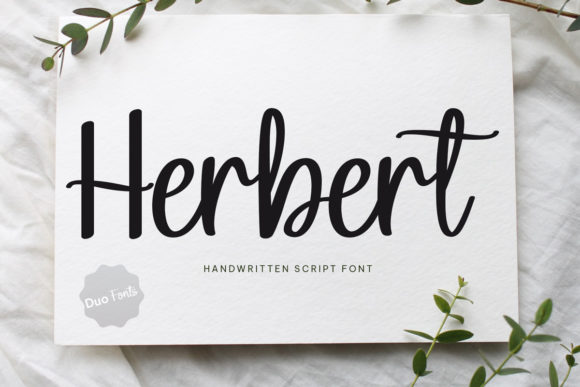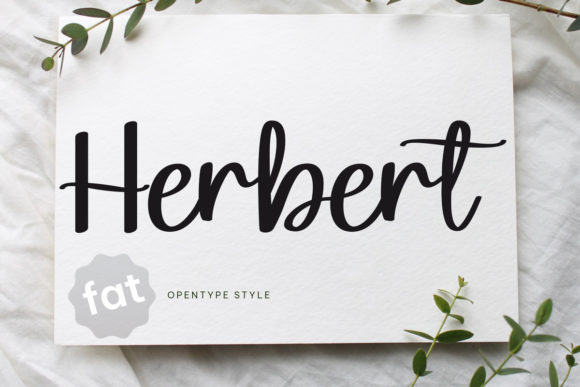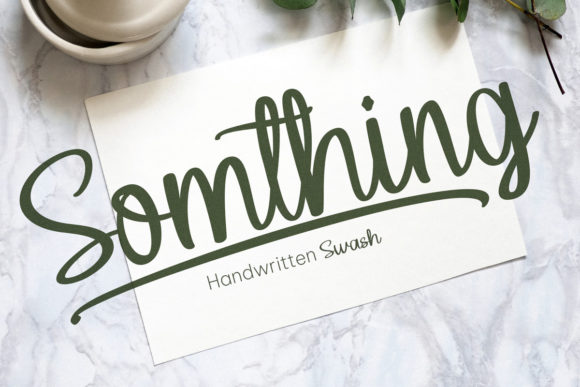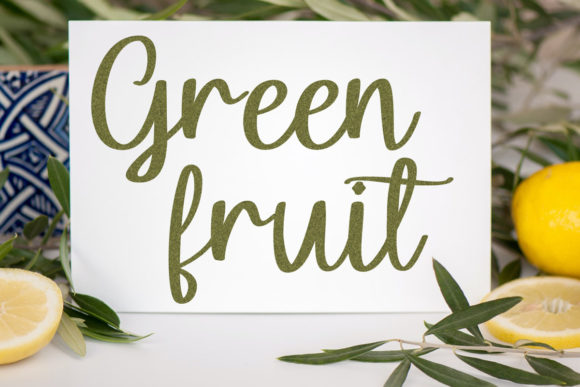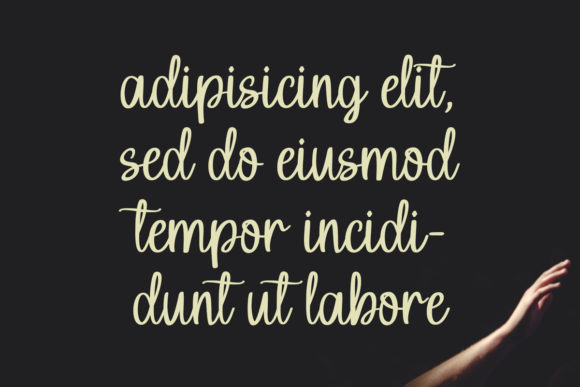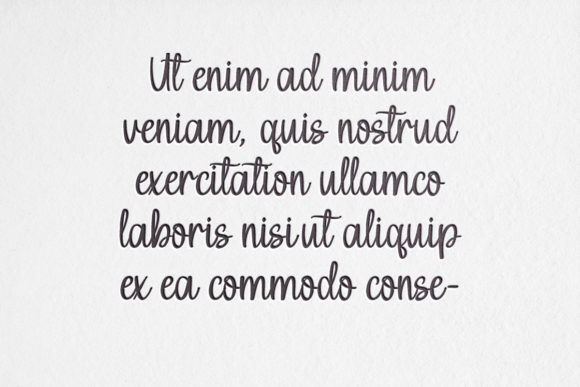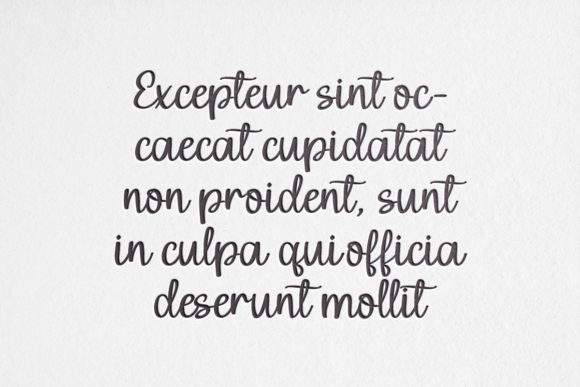
Herbert Font
About Herbert Font
Herbert is a stylish script font with a charming identity, making it a versatile and appealing choice for a variety of creative projects. This font is well-suited for applications such as photography, watermarks, quotes, blog headers, posters, and more, adding a touch of sophistication to your designs.
The stylish nature of Herbert contributes to its visual appeal, making it suitable for projects that demand a contemporary and chic aesthetic. Whether used in photography projects or as a watermark, this font enhances the overall elegance of your visual content.
For quotes and blog headers, Herbert brings a charming identity that adds a personal and stylish touch to your written content. The script style of the font creates a flowing and dynamic look, making your quotes and headers visually engaging.
In posters, Herbert’s stylish script adds a touch of sophistication to the overall design. Its versatility allows it to adapt to different themes and contexts, ensuring that it complements the visual elements of your poster.
The flexibility of Herbert makes it a valuable asset for various creative endeavors. Whether you’re working on digital or print materials, this font can be seamlessly incorporated into your projects, enhancing the overall aesthetic with its stylish and charming identity.
In summary, Herbert is more than just a font; it’s a stylish script design tool that elevates the charm of your projects. Whether applied to photography, watermarks, quotes, blog headers, posters, or other creative endeavors, Herbert brings a versatile and appealing identity, making your designs stand out with sophistication.